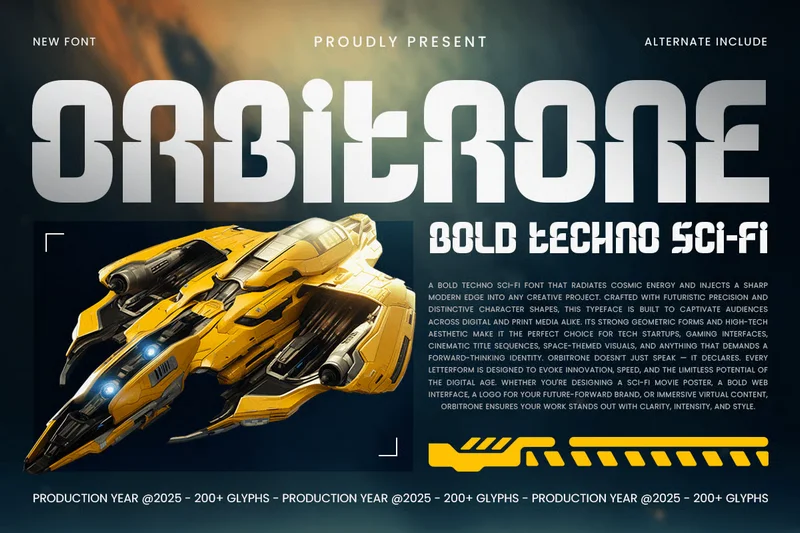
Orbitrone – Bold Techno Sci-fi Font
ORBITRONE is a bold techno sci-fi font crafted for futuristic and high-tech projects. Ideal for logos, branding, posters, digital interfaces, and sci-fi themed designs, it combines strong geometric shapes with a clean, modern aesthetic.
With sharp letterforms and a high-tech style, ORBITRONE delivers clarity, impact, and a professional look suitable for both print and digital media. Perfect for tech startups, gaming, and sci-fi projects.
ORBITRONE – Bold Techno Sci-fi Font Features
Bold and futuristic character set
Perfect for techno, sci-fi, and branding designs
Uppercase, lowercase, numerals, and punctuation included
OpenType features for extra versatility
Bring futuristic impact to your designs with ORBITRONE – the ultimate bold techno sci-fi font! 🚀